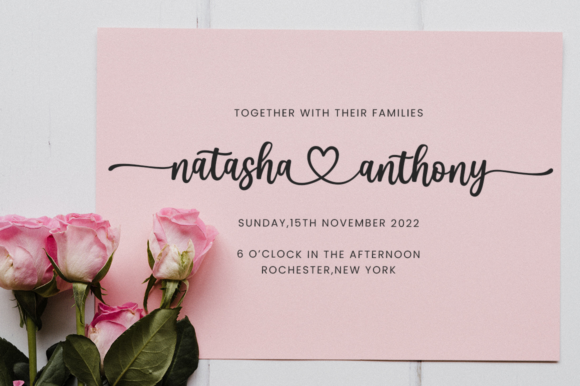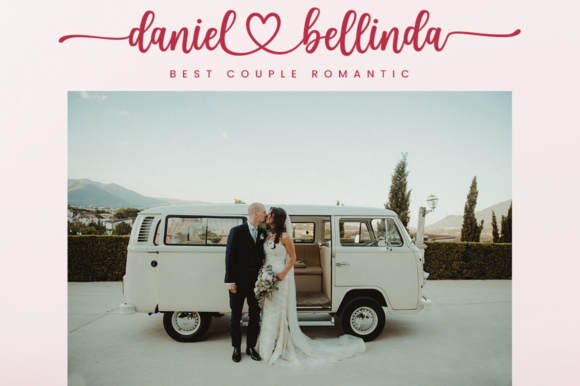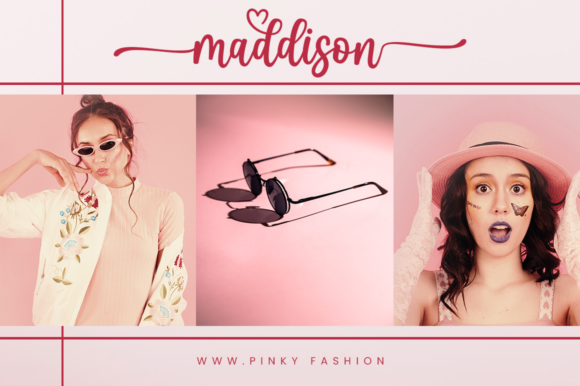
About Baby Aletha Font
Baby Aletha is a romantic and sweet calligraphy typeface with characters that dance along the baseline. It will add a luxury spark to any design project that you wish to create! This font is PUA encoded which means you can access all of the amazing glyphs and ligatures with ease!